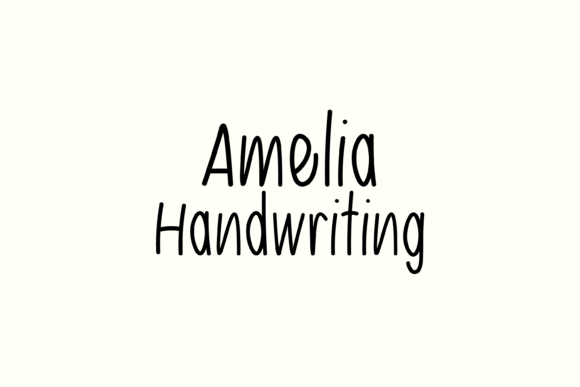
The Designer’s Delight: Getting to Know Amelia Font
Have you ever been in the middle of a design project, and suddenly, you’re stuck on finding the perfect font? I recall a particularly frustrating experience while working on a wedding invitation design. My client wanted something whimsical and romantic, but I was coming up blank. That’s when I stumbled upon Amelia Font, and it instantly brightened up my design process. In this article, we’ll dive into the world of Amelia Font, exploring its features, uses, and what makes it a fantastic addition to your design toolkit.
A First Impression: What Makes Amelia Font Special
Amelia is a simple and friendly handwritten display font that exudes a sense of whimsy and playfulness. Its quirky charm makes it perfect for designers, crafters, and creative hobbyists looking to add a personal touch to their projects. Whether you’re working on logos, wedding invitations, quotes, advertisements, print materials, or magazines, Amelia Font is sure to deliver.
So, what makes Amelia Font stand out? Here are some of the things I love about it:
- ✨ Unique Character: Amelia has a distinct personality that sets it apart from other fonts.
- ✅ Ease of Use: This font is incredibly easy to read and works well in various design contexts.
- 💫 Versatility: From formal to informal designs, Amelia Font adapts seamlessly.
- 🎉 Fun and Playful: It adds a touch of whimsy to any design, making it perfect for creative projects.
While Amelia Font is fantastic, it’s not without its quirks:
- 🤔 Limited Formality: Amelia’s playful nature makes it less suitable for very formal or traditional designs.
- ⚠️ Overuse: Using Amelia Font excessively can make your design look cluttered or overly whimsical.
The Story Behind Amelia Font
Amelia Font was designed with the intention of creating a friendly and approachable typeface. The designer aimed to craft a font that would bring a sense of whimsy and playfulness to designs without compromising readability. Inspired by everyday handwriting, Amelia Font was born to add a personal touch to various creative projects.
Q: What type of projects is Amelia Font best suited for?
Amelia Font is perfect for logos, wedding invitations, quotes, advertisements, print materials, magazines, and more! Its versatility makes it suitable for a wide range of creative projects.
Q: Is Amelia Font easy to read?
Absolutely! Amelia Font is designed to be easy to read while still offering a unique and playful twist.